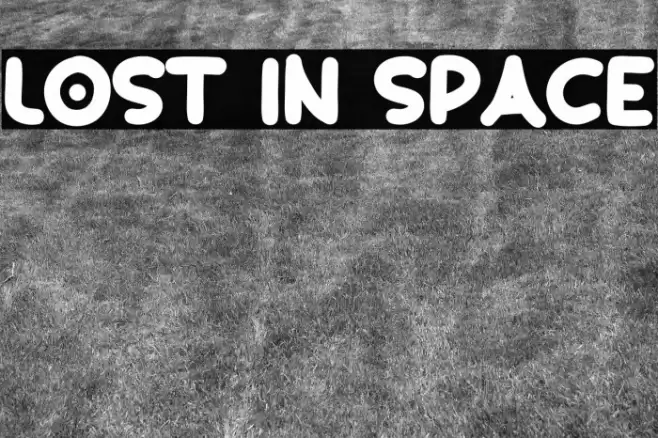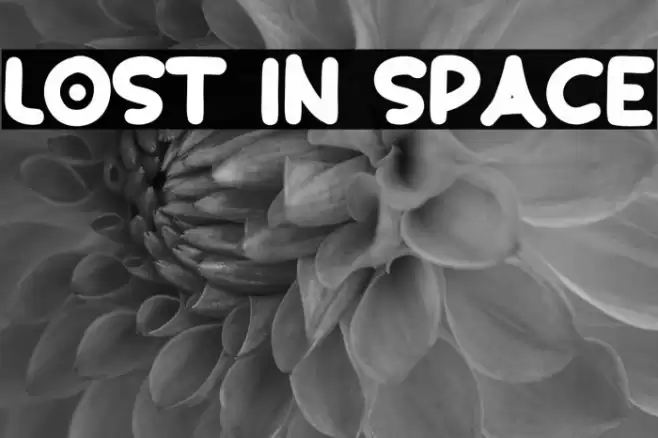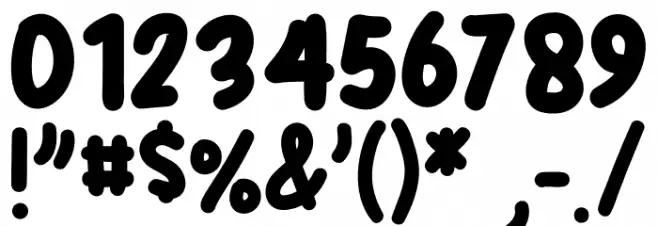
Lost In Space Font
Lost In Space Description
This playful and bold font features rounded, thick strokes that give it a friendly and approachable appearance. The characters are uniformly wide, with a consistent stroke weight that adds to its boldness. The rounded edges and lack of sharp angles contribute to a soft, inviting look. This font is highly legible, even at smaller sizes, making it versatile for various design applications. The numerals and special characters maintain the same playful style, ensuring consistency across all text elements.
A bold, rounded font with a playful and friendly style from Uncategorized fonts.
- Proposed Projects: Ideal for children's books, playful branding, posters, and any project that requires a fun and approachable typeface.
- Overall Style: Playful